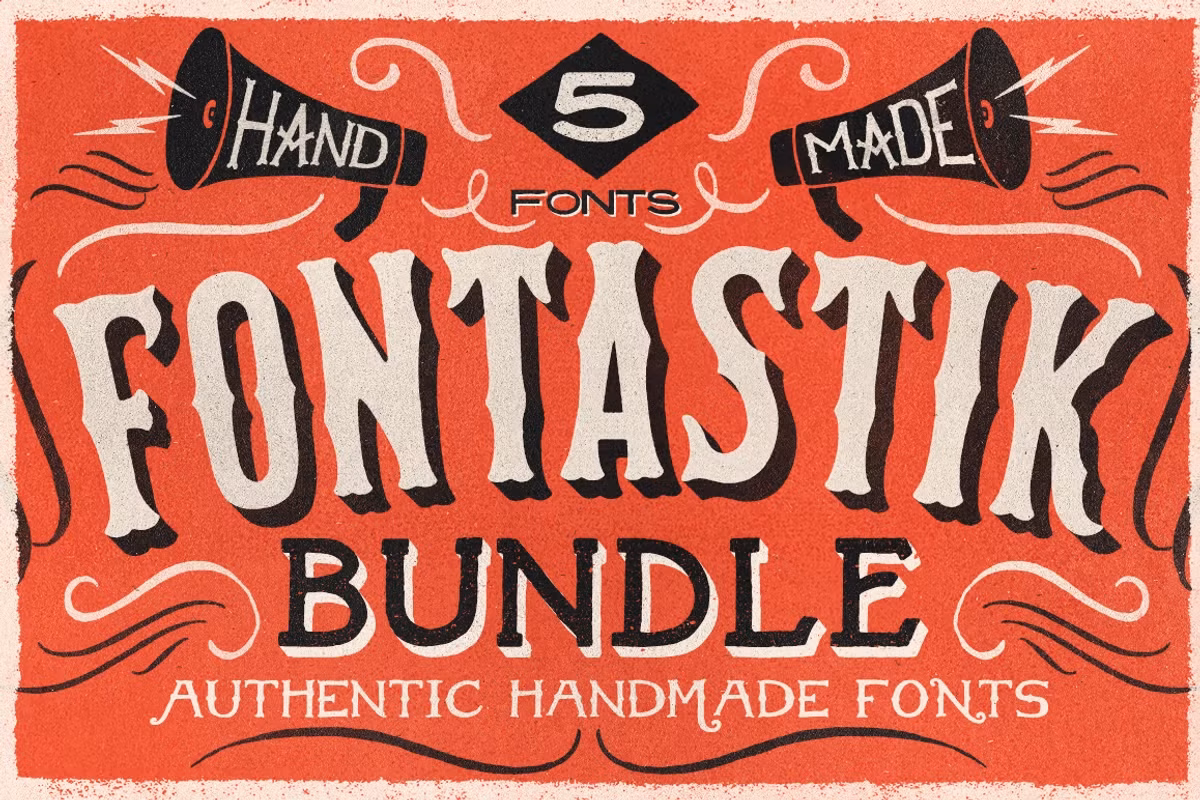
Fontastik Bundle Free Download
Fontastik Bundle Font Free Download
Please note, to use this font for commercial purposes, you must purchase the full version. The Fontastik Bundle Font is an extensive collection of versatile and creative fonts designed to enhance your design projects. With a variety of styles ranging from modern serifs to playful scripts, this bundle offers everything you need for logos, branding, invitations, posters, and more. Whether you're designing for a corporate brand, a creative event, or a personal project, the Fontastik Bundle Font provides a diverse selection to bring your ideas to life. Test it out and enjoy free download access for personal use. Explore the full potential of Fontastik Bundle Font Free Download before purchasing the commercial license. Add a dynamic and stylish touch to your designs with the Fontastik Bundle.